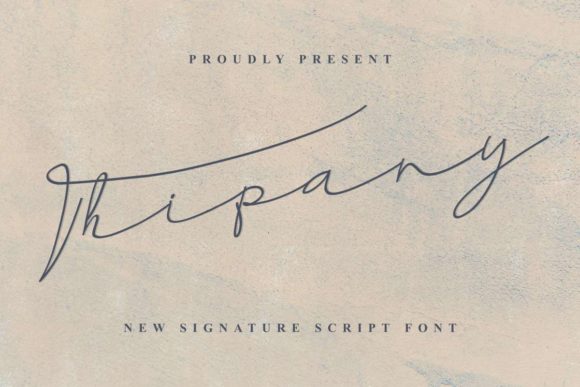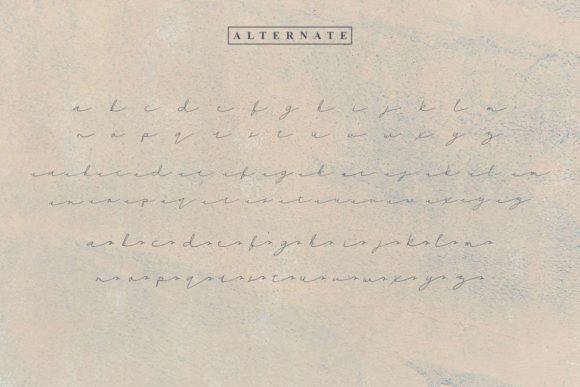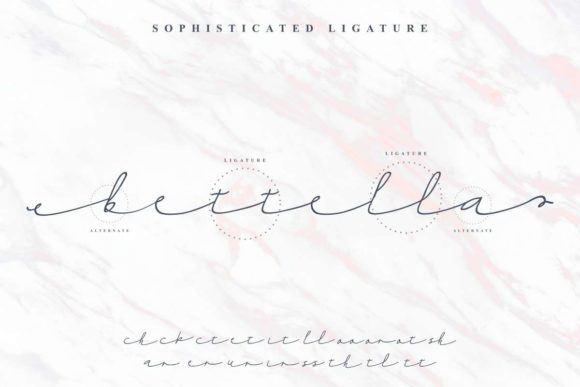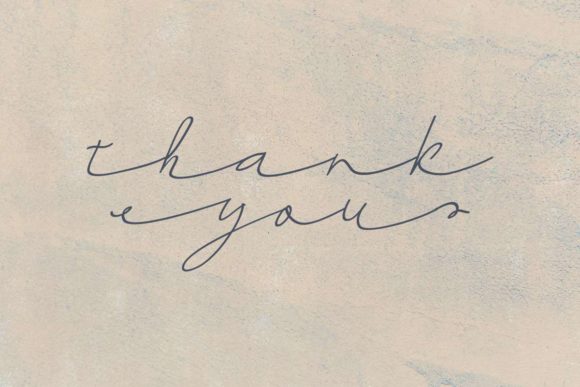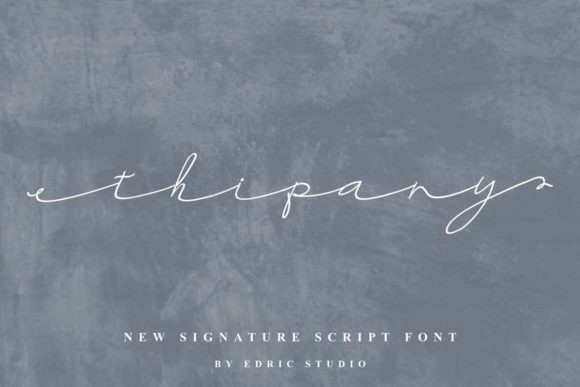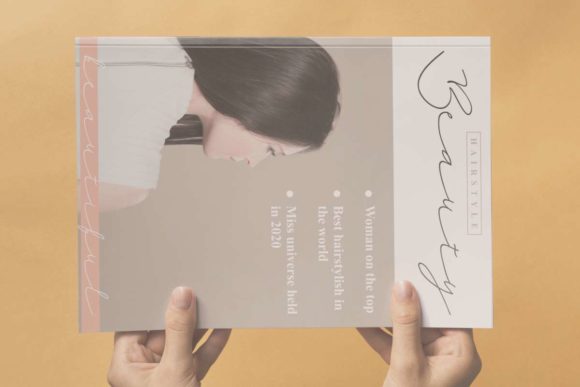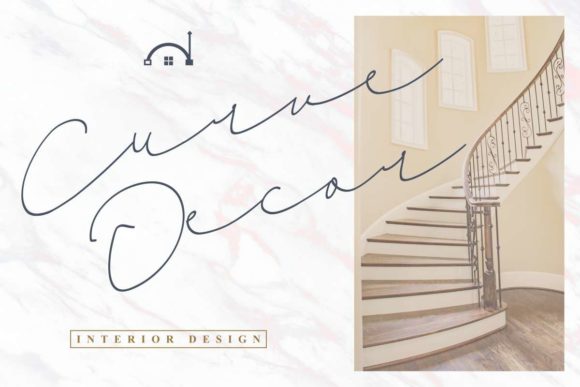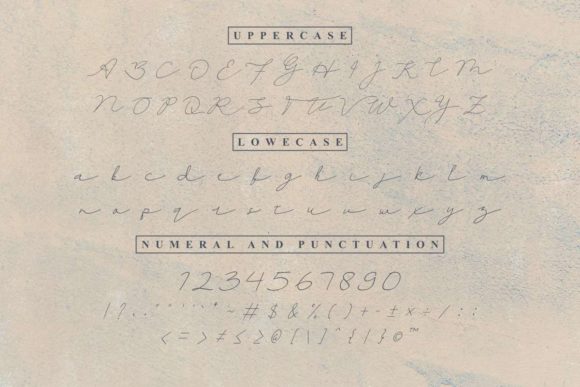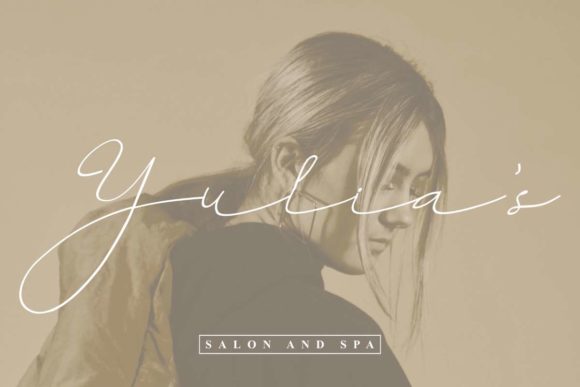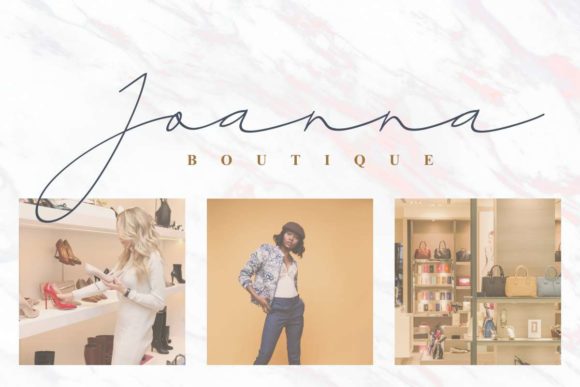
HomeScript FontsThipany Font Script Fonts Thipany Font FacebookXPinterestWhatsApp Thipany Font Poster 2 Thipany Font Poster 3 Thipany Font Poster 4 Thipany Font Poster 5 Thipany Font Poster 6 Thipany Font Poster 7 Thipany Font Poster 8 Thipany Font Poster 9 Thipany Font Poster 10 Thipany Font Poster 11 Thipany Font Poster 12 About Thipany Font Thipany is a thin and elegant script font that radiates charm. Get inspired by this gorgeous signature script. DOWNLOAD NOW People also explored Melly Script Font Dillova Font Bostonbay Font Nirmala Font Happy Monster Font Lizbeth Font Heartwarming Font Mimosa Dutton 374 0 TagsThipany Font Previous articleJonatan Eve FontNext articleShabitha Font LEAVE A REPLY Cancel reply Comment: Please enter your comment! Name:* Please enter your name here Email:* You have entered an incorrect email address! Please enter your email address here Website: Save my name, email, and website in this browser for the next time I comment. Personal Use Free Lion Teen Personal Use Free Read more about this font Solaria Personal Use Free Read more about this font Kumadinya Personal Use Free Read more about this font Over the Top Personal Use Free Read more about this font BLOG Where to Buy American Fonts Online in 2024 Where to Buy American Fonts Online: The Ultimate Guide for 2024 Looking for the perfect American font to elevate your design projects? You're in the... To increase your work productivity, choose the most readable fonts. How to Cut Any Font on Cricut: Convert a Font to SVG (Free) Fonts That Capture the Spirit of New York City